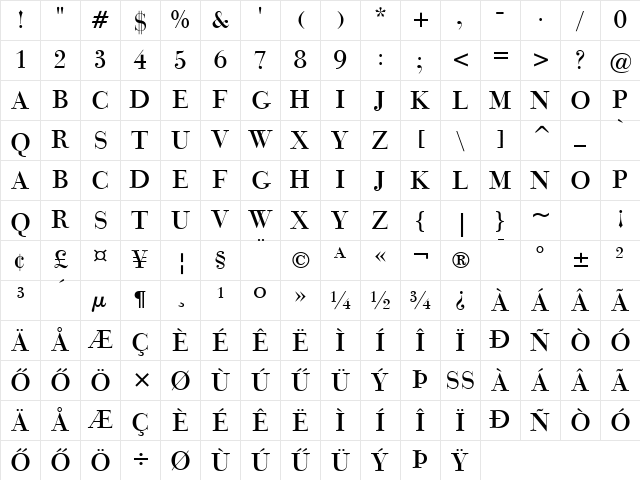
Bauer-Bodoni TitHU Titling
Style: Titling
Design Context for Bauer-Bodoni TitHU
Bauer-Bodoni TitHU is a composed and adaptable typeface that performs quietly and consistently across a wide range of design contexts.
Pro Tip: Use Bauer-Bodoni TitHU in both headline and body roles to test its range before committing to a single application.